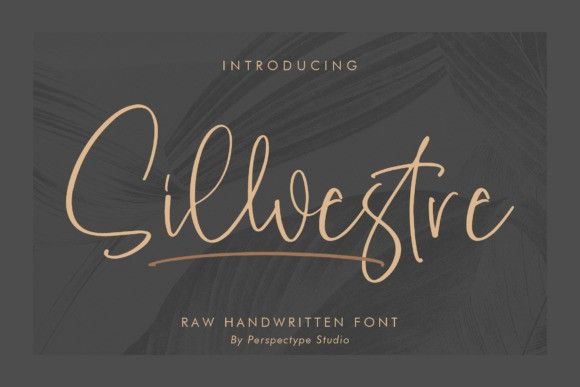
Sillvestre Font
Sillvestre Font is an elegant and dainty handwritten font that features sweet and delicate swashes. This original look will appeal to a wide range of crafty ideas, from letterheads and titles to stationery.